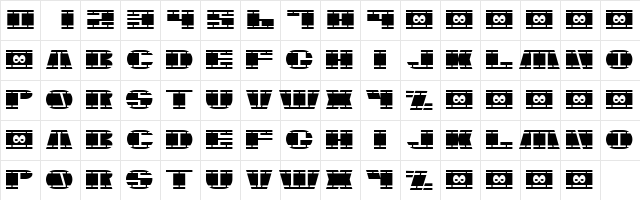
Nasser Regular
Design Context for Nasser Typeface
Nasser is a composed and adaptable typeface that performs quietly and consistently across a wide range of design contexts.